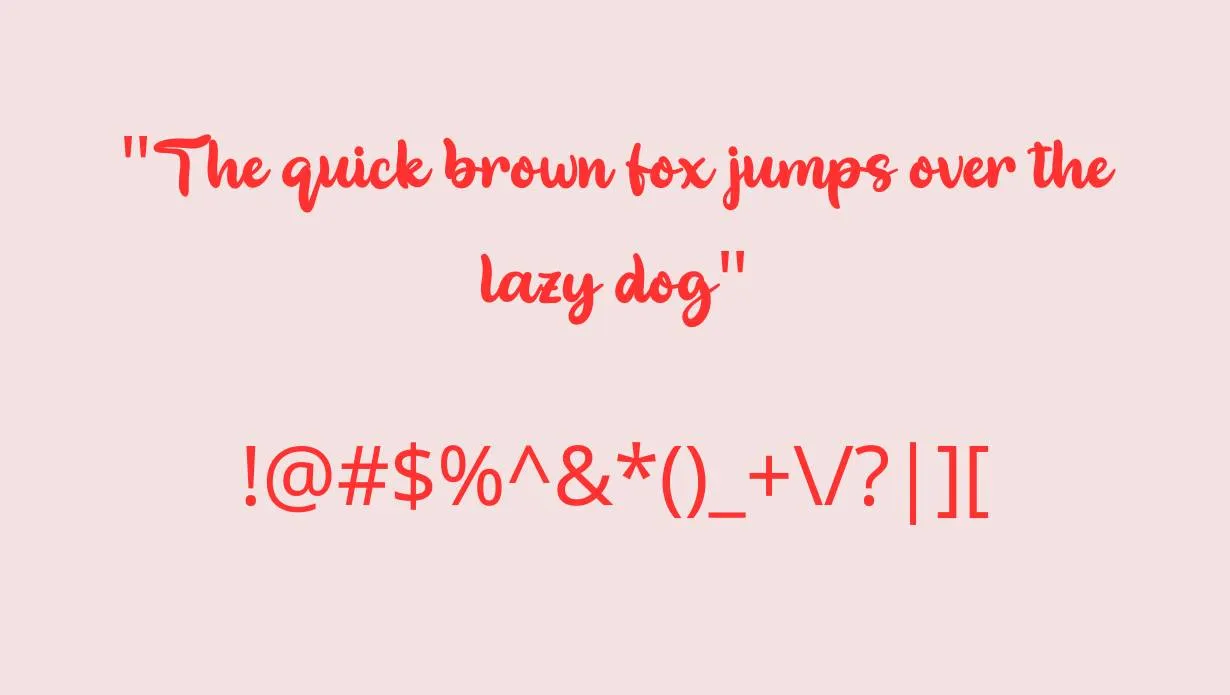
The Princess Regular font embodies an elegant and regal feel, often used in invitations, feminine branding, or designs requiring a refined and graceful touch.
| Name | Princess Regular Font |
| Designer | Thierry Puyfoulhoux |
Its stylish and delicate style brings a sense of sophistication and charm to the text, making it perfect for designs aspiring for a sense of grace and beauty. For a design that is distinct and visually striking, consider combining this font with the nature beauty font.